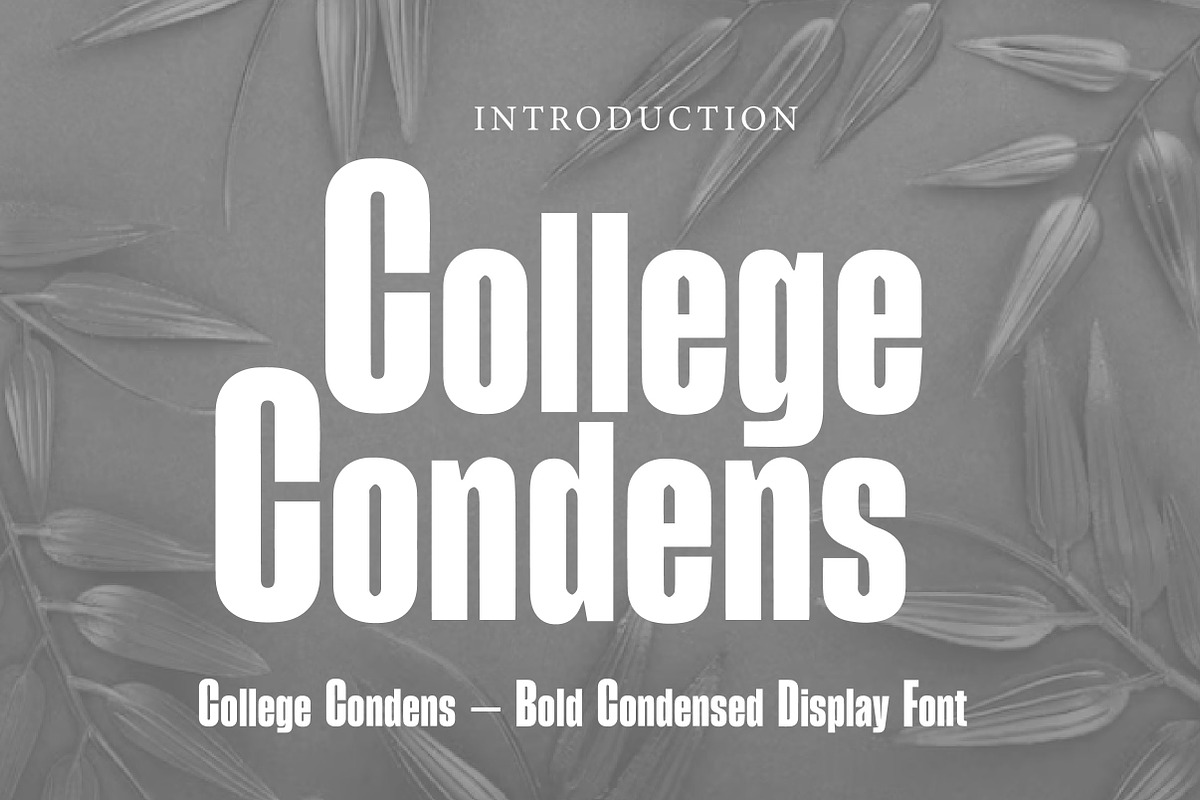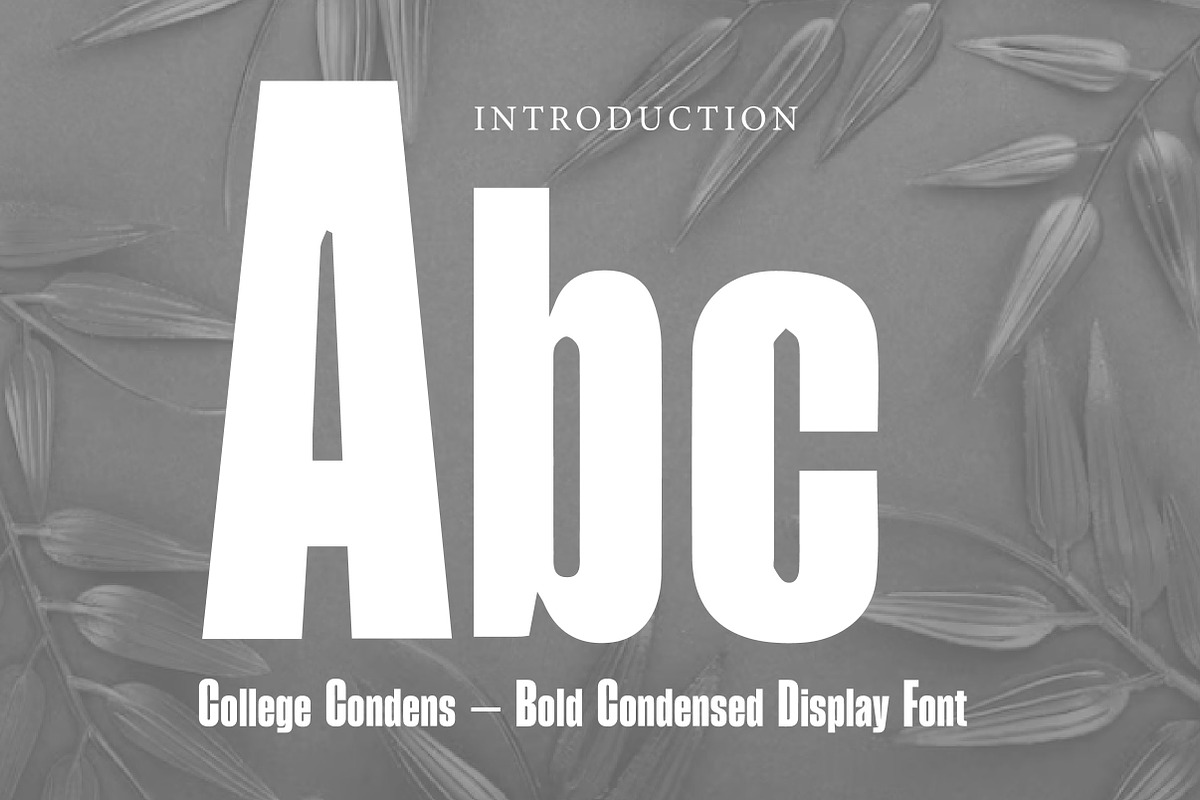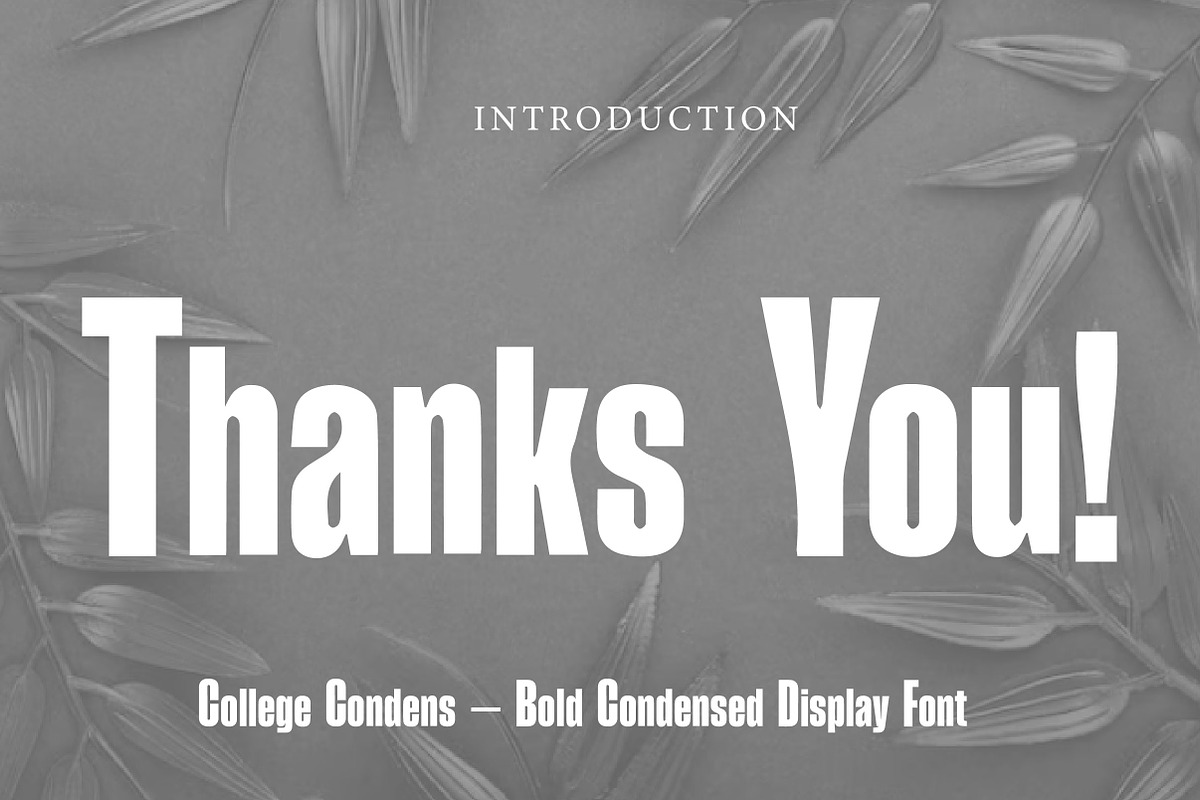
College Condens
College Condens – Bold Condensed Display Font
College Condens is a bold, tall, and powerful condensed display font, perfect for sports designs, headlines, posters, branding, and impactful typography projects.
College Condens is a strong and commanding condensed display font designed to create a bold visual impact. With its tall proportions, clean structure, and solid letterforms, this font delivers a confident and energetic look that works perfectly for attention-grabbing designs.
Inspired by athletic, collegiate, and poster-style typography, College Condens is ideal for projects that need a powerful and structured typeface. Whether you're designing sports branding, team merchandise, posters, logos, apparel, packaging, or bold social media graphics, this font helps your message stand out clearly and professionally.
Its narrow shape makes it especially useful for large titles and space-saving layouts, while still maintaining strong readability and presence. College Condens is a great choice for designers who want a font that feels modern, sporty, bold, and versatile.
Perfect For Sports branding Team logos Posters and headlines Apparel and merchandise College-themed designs Packaging design Social media graphics Advertising materials Bold editorial titles Strong display typography Font Features Uppercase letters Lowercase letters Numbers & punctuation Bold condensed style Tall and powerful letterforms Clean and modern structure Perfect for display use